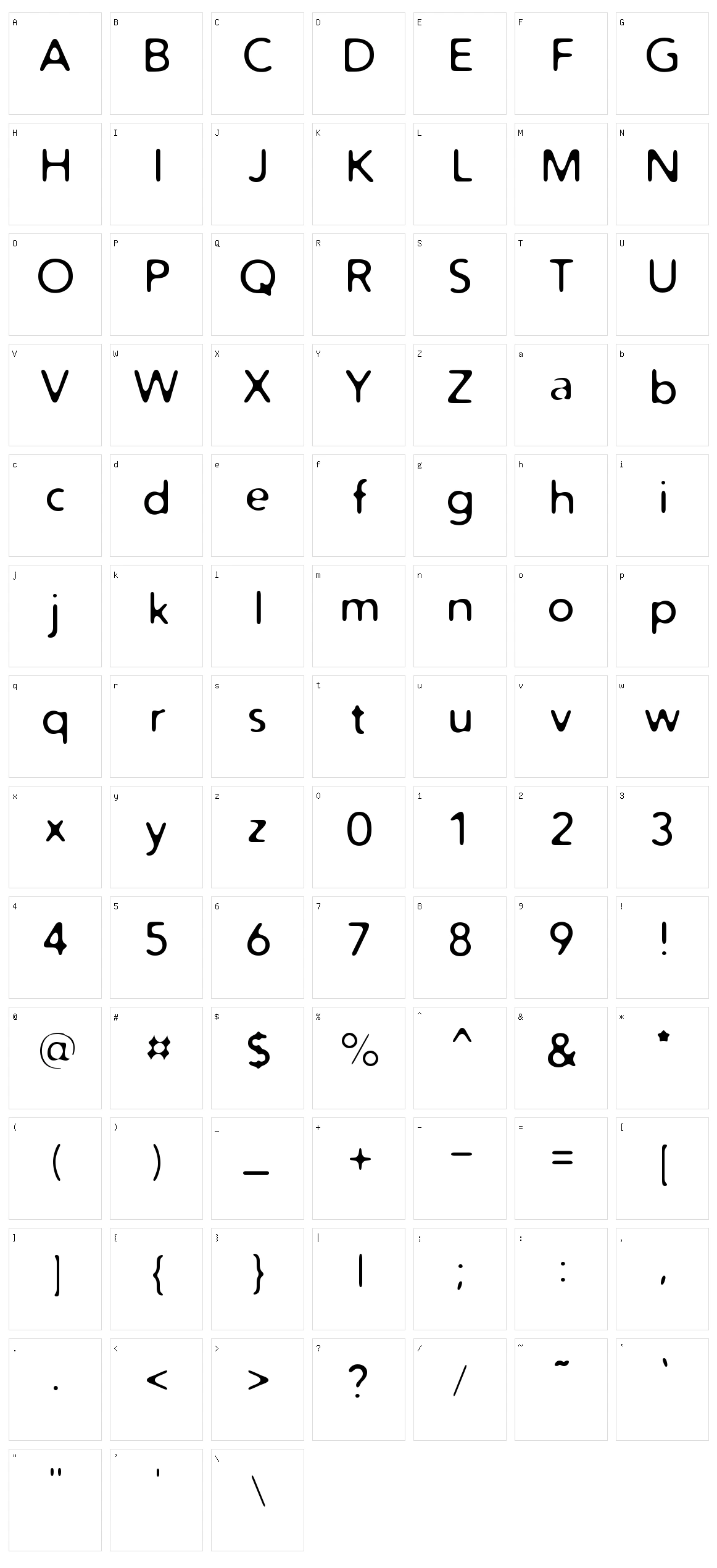
Presenting DISTRO - the Update.
The previous version of DISTRO was so well-received that I decided to release a polished-up version. As OTF is now so ubiquitous, I've created brand new Open Type versions which should be compatible for everyone.
These fonts are top notch, professional quality typefaces. All outlines were drawn and optimised by hand. A previous version of Distro Extinct has been sold commercially by FontHaus (now DesignHaus) on their FontHaus Exclusives CD, under the name 'Extinction'. If you bought this font from them, you should know that they released an UNAUTHORIZED and UNFINISHED version which has major flaws and many missing characters. Despite promises of a contract, FontHaus have never paid me a cent in royalties. Font designers beware!
Distro
The DISTRO basic set includes Light, Regular, Bold, Heavy and Black versions, plus a fantastically useful set of matching Distrobats. You also get a Toasted version for breakfast and an Extinct one for scaring your aunt. Rumours of further variants abound... At least one of these fonts was included on the commercial FontHaus Exclusives CD, but you're getting them for free!
The Distro series was part inspired by Brody's ubiquitous Blur and also by the blurry print of a Chinese novel printed by the Beijing Publishing Co. (Ya gotta love 'em, go check out their catalog.) I adored Brody!Blur but felt hampered by the lack of weights.. and also by the fact that it's been done to death in these parts. (I guess that means it's a classic.)
So I started work on my own version, and was fascinated to discover how the character shapes changed with different blur and contrast settings. There's still a lot to be explored with the way light and focus affects type....
Helpful notes
These fonts were designed to be used at all sizes. I put a lot of work into making them readable as body text and you shouldn't have any trouble with that. But my true confession for this evening is that I adjusted the kerning and character spacing, particularly of the heavier weights, to suit larger size output. Use 'em big and you'll have lotsa fun, but if you need some Distro body text, you should increase the character spacing/tracking a little in your layout app. The effect should be that of glancing blearily over a printed page at 2am after one too many beers. (Now there's a design brief we can all relate too!)
Distro